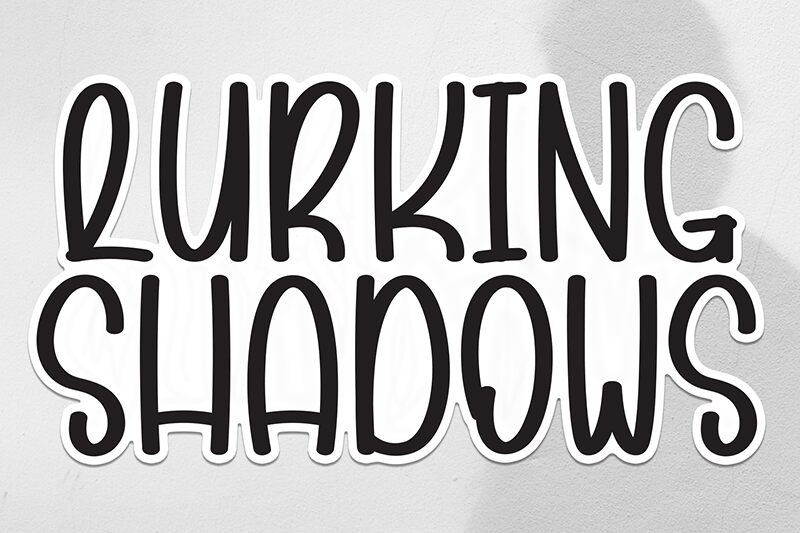
Lurking Shadows
Lurking Shadows font by Andi Moz is a monoline handwritten font with connected letters. It merges sharp features and eccentric structures to provide users with a mysterious aura paired with a quirky character and contemporary appeal. This modern yet simple script font must make it to your fonts visual library.
Embracing Lurking Shadows ensures that invitations, greeting cards, branding and packaging designs, home decor items, magazines and album covers have something special about them. But don’t stop there! Logos, promotions for apparel pieces, lookbooks for photographs or videos all stand to gain from this free script font.